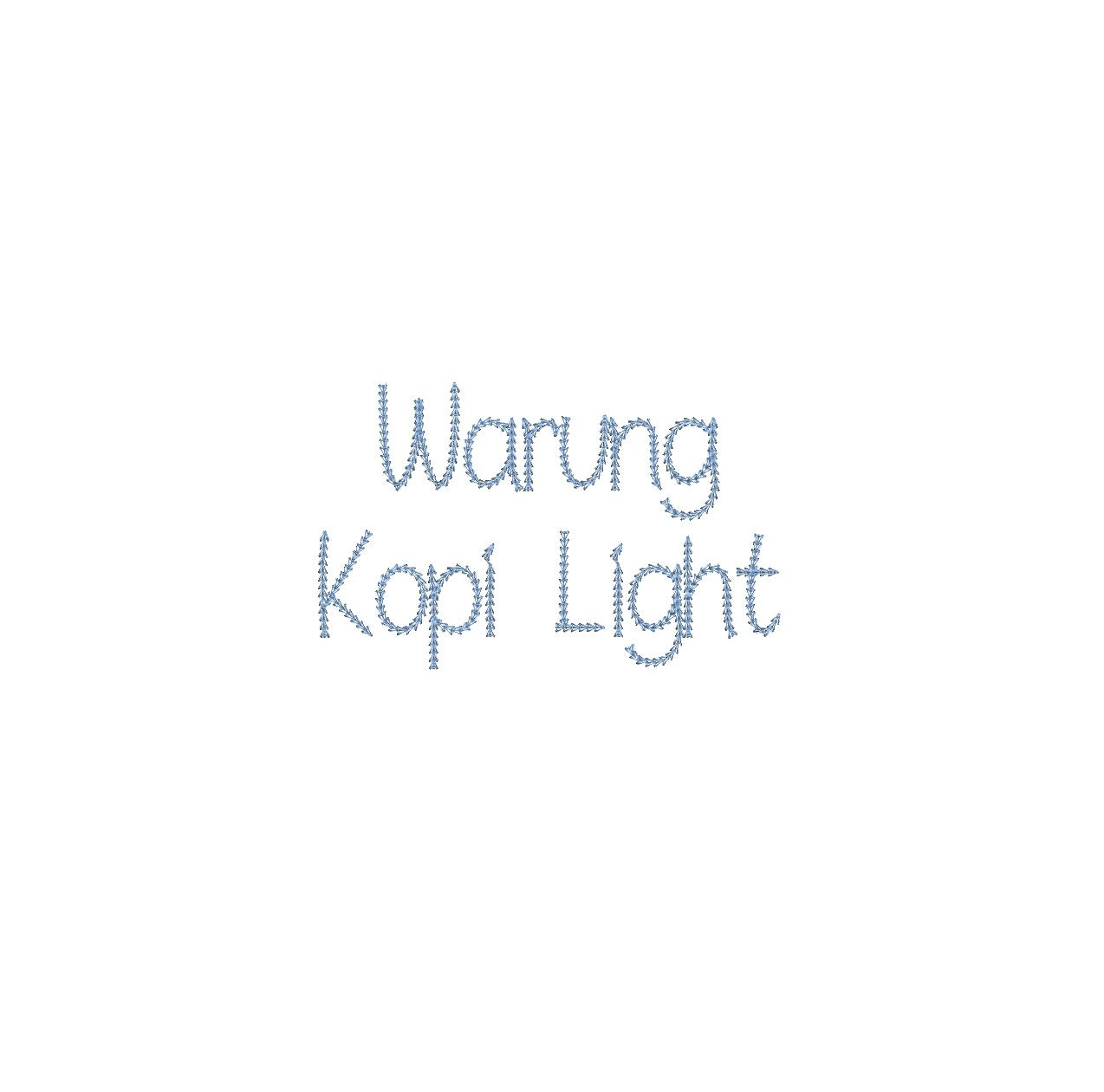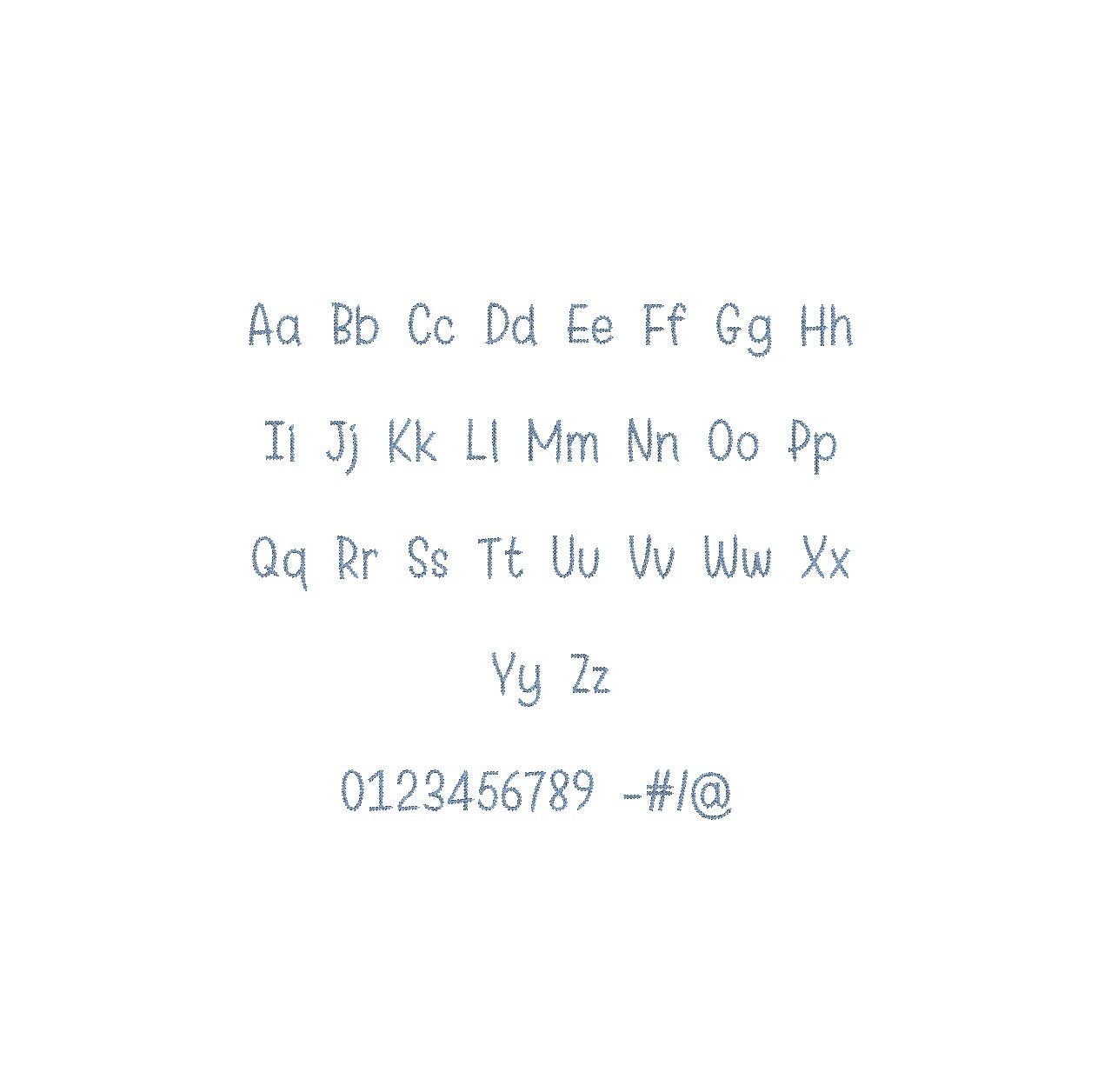
Elevate your embroidery with the Warung Kopi Light Chain Stitch ESA font. Perfectly compatible with Wilcom Studio e4.5.6 and Hatch 3 versions and above, this font adds a touch of delicacy to your designs. Create captivating monograms, labels, and embellishments effortlessly. Seamlessly integrate the font to unlock versatile creative possibilities. Download Warung Kopi Light Chain Stitch ESA font now to infuse your embroidery with a subtle charm. Elevate your projects with this exceptional font, transforming each piece into a work of delicate artistry. Add a touch of elegance to your creations with this versatile addition to your toolkit.